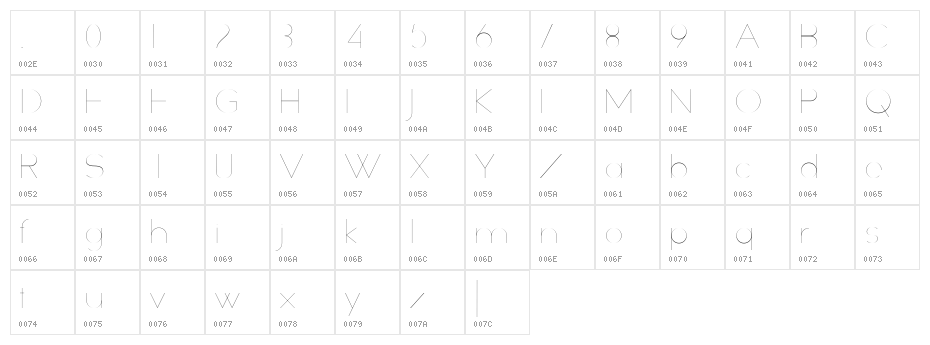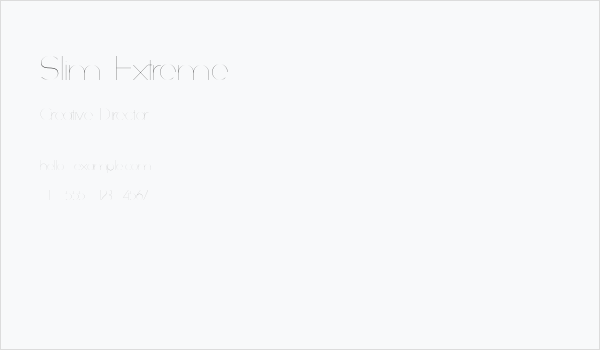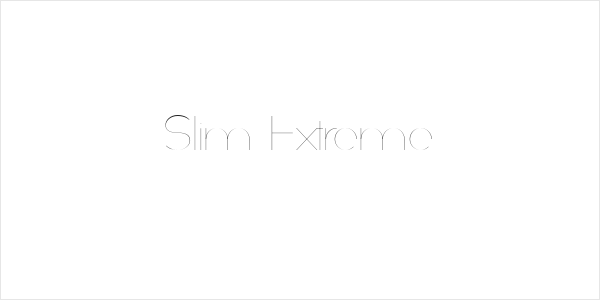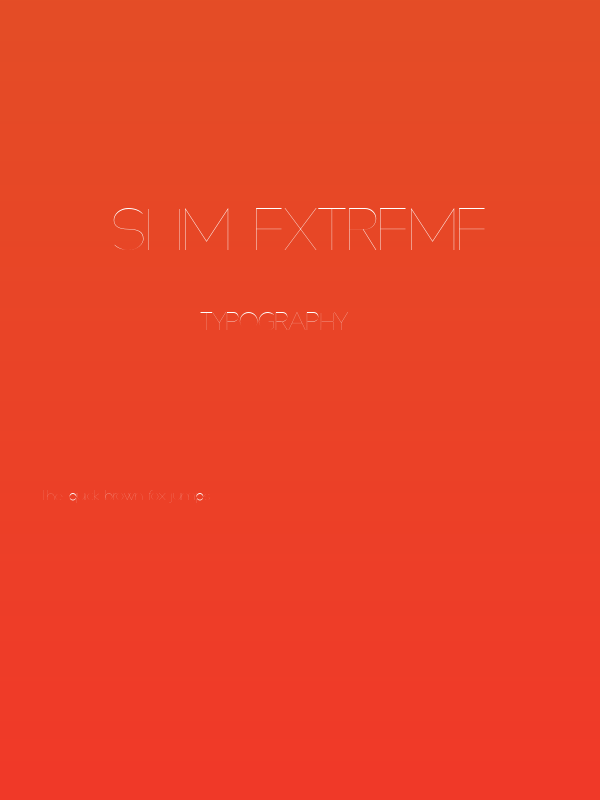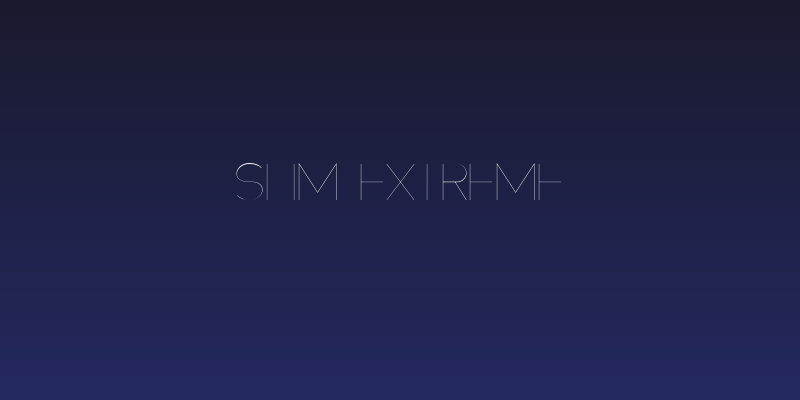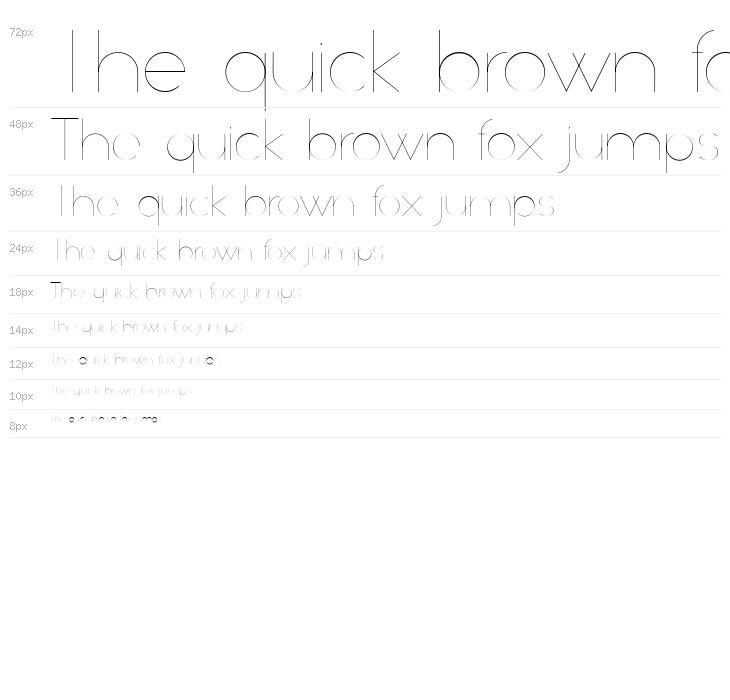
Slim Extreme Font
Slim Extreme Description
This font features an ultra-thin, minimalist design with clean, geometric lines. The characters are elegantly elongated, giving a modern and sophisticated appearance. The uppercase and lowercase letters maintain a consistent stroke width, contributing to a sleek and uniform look. The numerals and special characters follow the same design principles, ensuring a cohesive style throughout. This font is ideal for projects that require a contemporary and stylish touch, such as fashion branding, luxury product packaging, or high-end editorial layouts.
| Use Case | Logos, Headlines |
| Proposed Projects | Ideal for fashion branding, luxury product packaging, and high-end editorial layouts. |